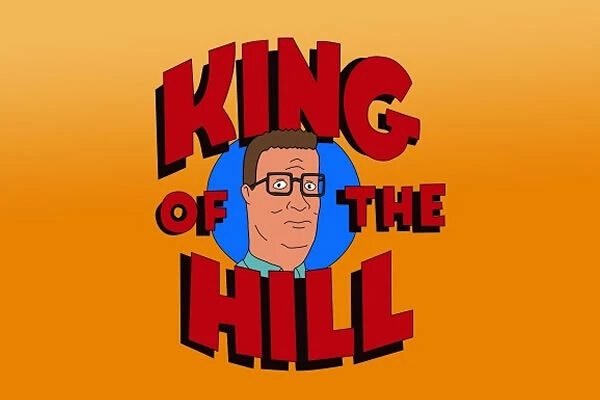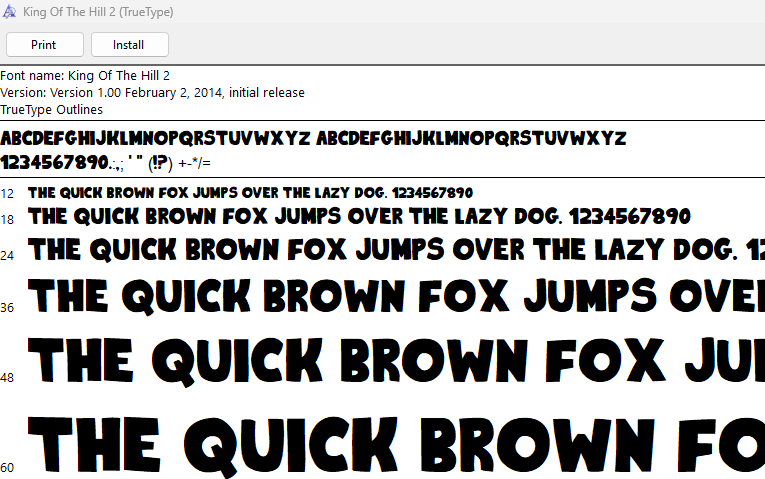
Welcome to the King Of The Hill font! The name of the typeface that most closely resembles the lettering used in the King Of The Hill animated tv series logo is a font of the same name. It was created by noted typeface designer Jayde Garrow. It was initially released to the general public for use and download on 2nd February 2014. It includes x2 styles: an outline font with drop shadow, as well as a more regular fully shaded variant. Both of these are in TTF format and are included in the download file below.
Here's a preview image of this free King Of The Hill font that you can view for yourself before. Check it out and I think that you'll agree that it's a pretty good replica of the original logo.
King of the Hill is an Emmy Award-winning animated series that debuted on Fox in 1997. It featured everyday situations involving an American family in the fictional town of Arlen, Texas. Often compared to The Simpsons, King of the Hill touches on similar themes related to family, parent-child relationships, friendships, justice, and loyalty. The animated sitcom ran for 13 seasons and became one of Fox network's longest running series. The show had been widely acclaimed for its character development, dry humor, and all too realistic depiction of the American life.